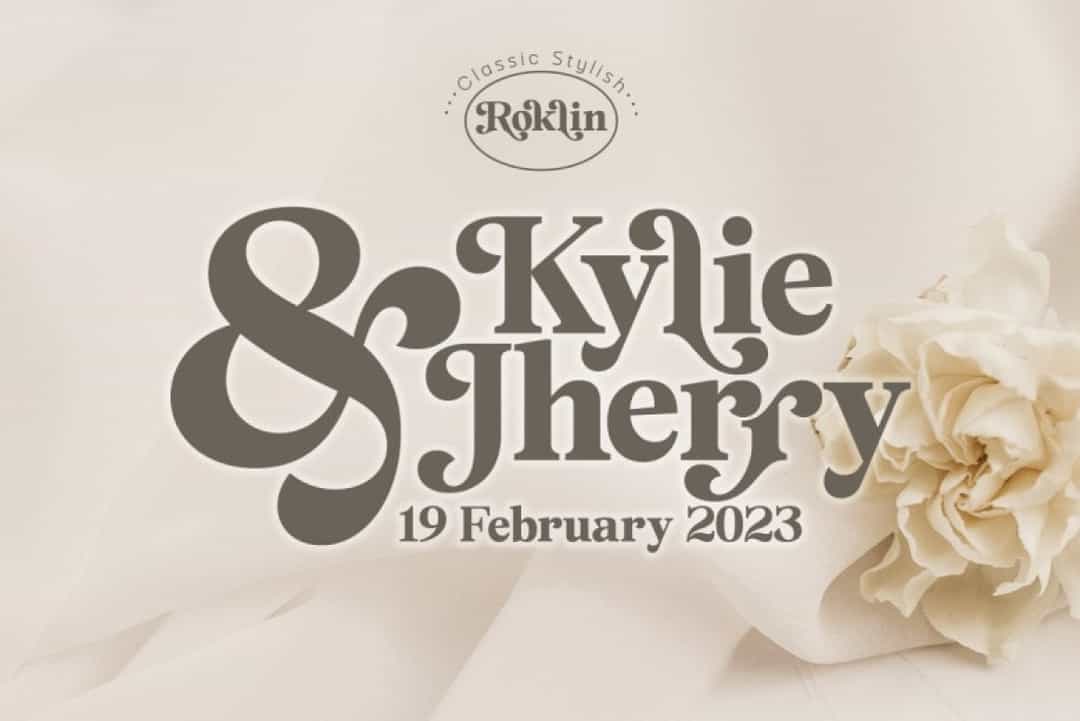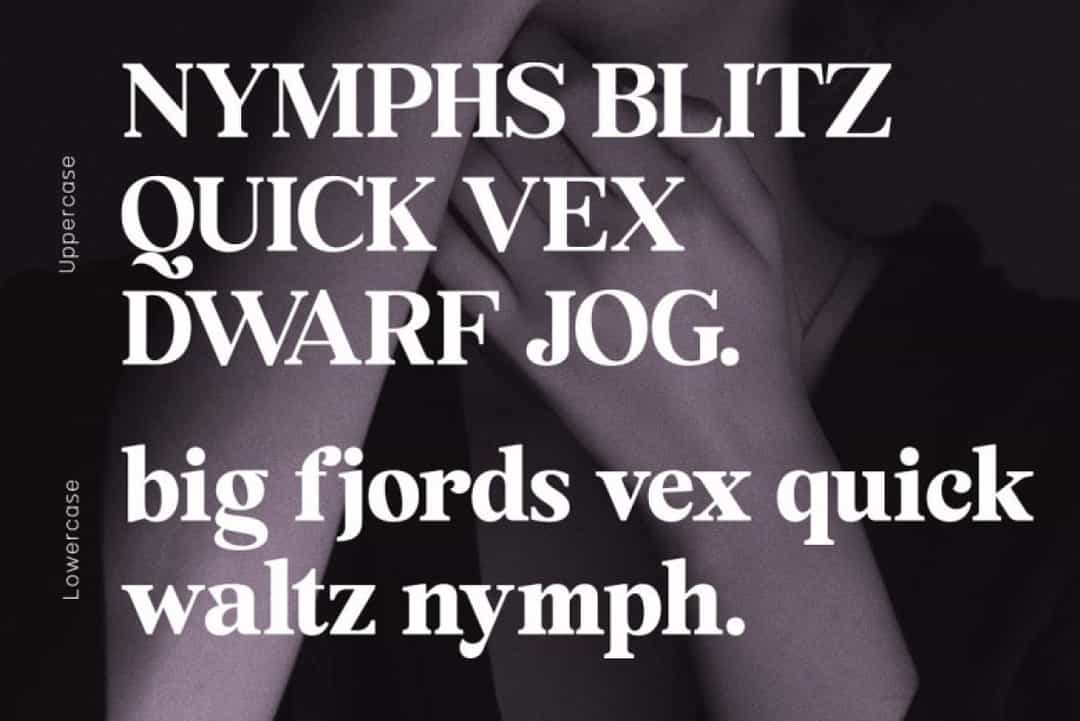
Roklin can be described as a sophisticated serif font family suitable for formal text and headers, featuring alternative characters as well as enhanced ligatures for casual typography or official documents alike. All characters are encoded using PUA so this font can easily be utilized across editing programs.